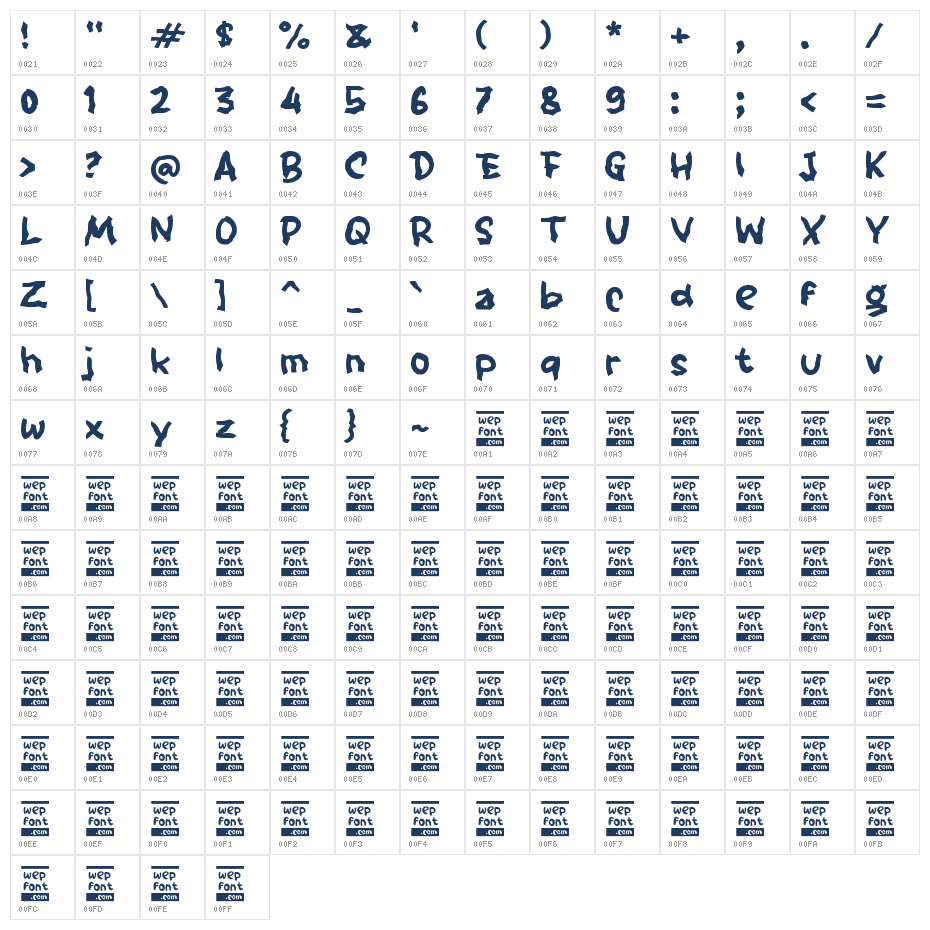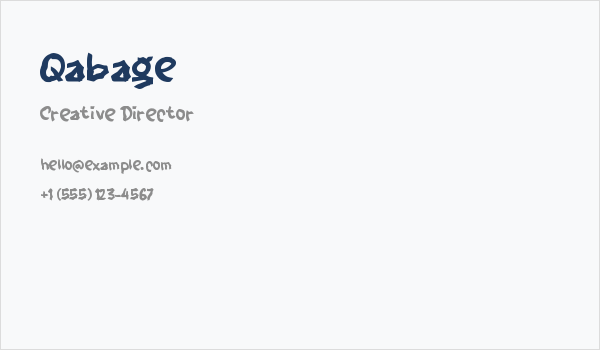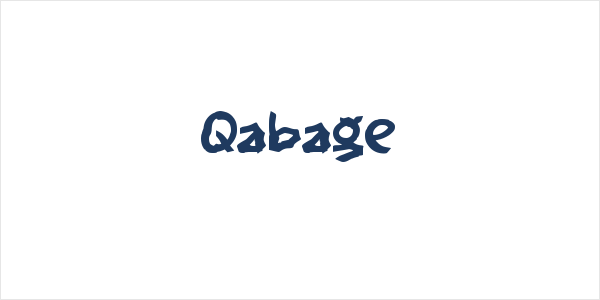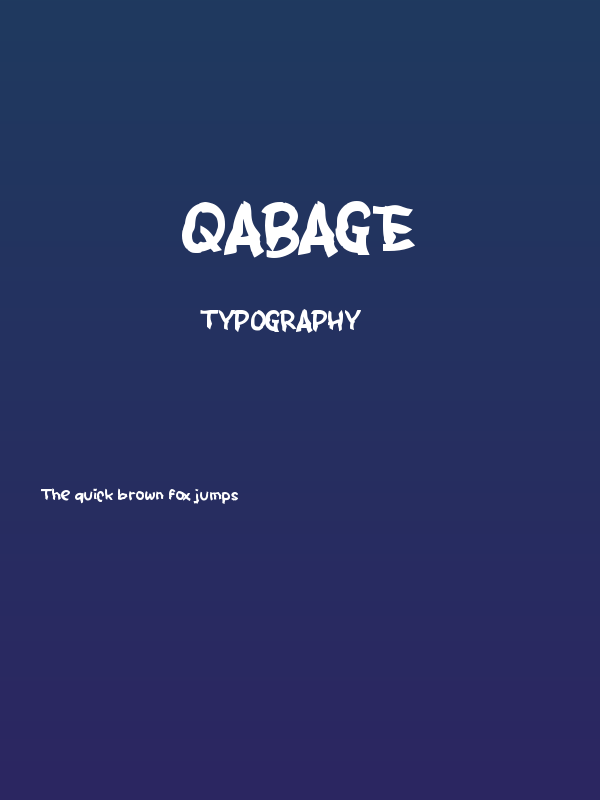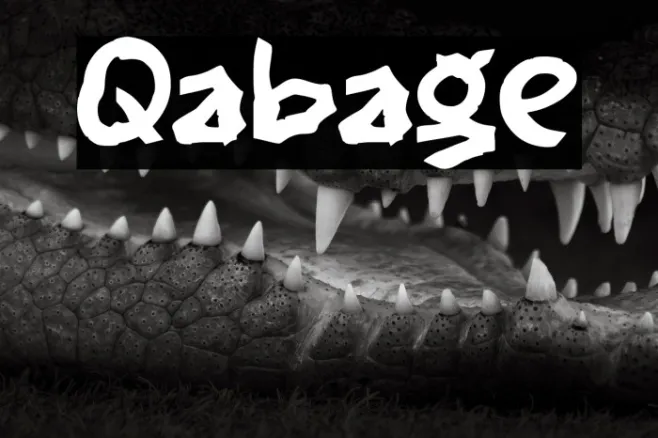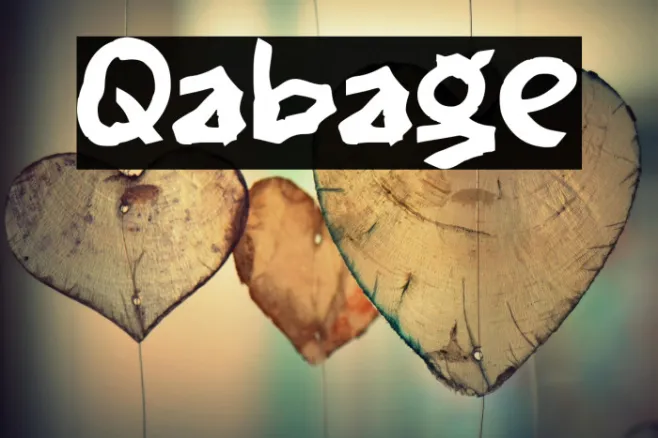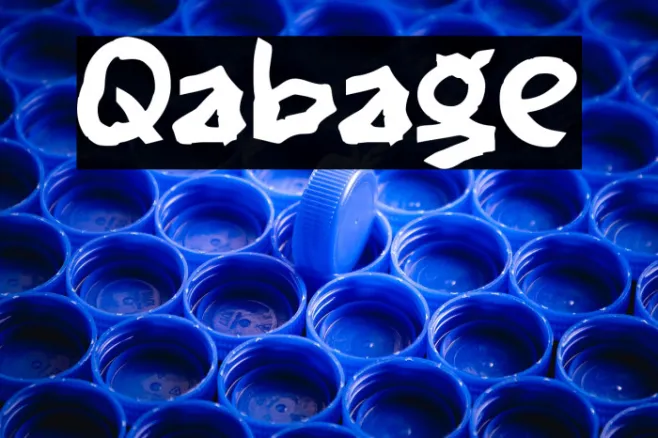
Qabage Font
Qabage Description
A playful, bold, and irregular handwritten style font with a casual and energetic appearance.
| Use Case | Headlines, Posters, Children's books, Logos |